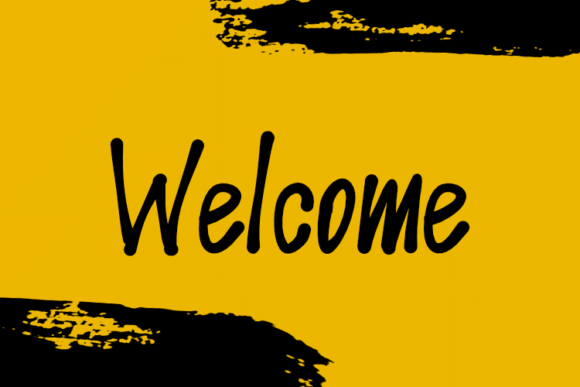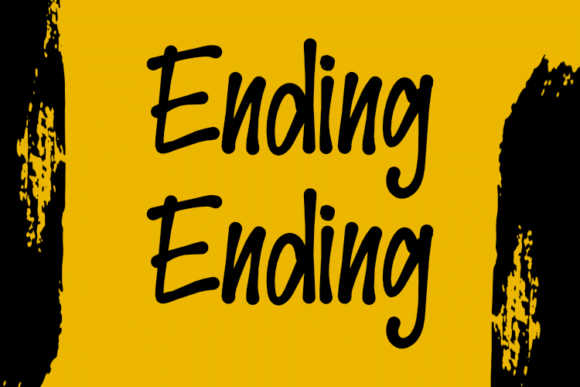
Introduction to Mbahri Font
Remember that moment when you’re working on a creative project, and the perfect font is all that’s missing to take it to the next level? You’ve scoured the web for the ideal typography, but nothing seems to capture the essence of your design. That’s where the Mbahri Font comes in – a stunning, high-quality handwritten font that exudes elegance and sophistication.
With its timeless classic calligraphy-inspired design, the Mbahri Font is the perfect addition to any design project. Its impeccable form and contemporary atmosphere make it a valuable resource for designers seeking to add a touch of refinement to their work. Whether you’re working on a branding project, a website, or a social media campaign, the Mbahri Font is sure to elevate your design and leave a lasting impression.
Key Features of Mbahri Font
- High-quality design: Mbahri Font offers a unique and creative touch for your design projects.
- Unique characteristics: The font’s creative and intricate design makes it perfect for use in a variety of creative projects, from digital art to print materials.
Honest Review: Mbahri Font
I recently stumbled upon the Mbahri Font and was excited to give it a try. As a designer, I’m always on the lookout for high-quality design resources that can elevate my creative projects.
The Mbahri Font is a great addition to any design library, offering a unique and stylish aesthetic that’s perfect for modern designs. One of the standout features of this font is its transparent background, which makes it easy to use and customize in various design applications.
- High-quality design with a unique and stylish aesthetic
- Perfect for modern and creative projects
- May not be suitable for traditional or classic designs
- Some users may find the font too modern or edgy
Mbahri Font
For optimal results, use Mbahri Font with a transparent background to make your design stand out. You can also experiment with different font sizes and colors to achieve a unique look. This font is a valuable design resource that can elevate your creative project.